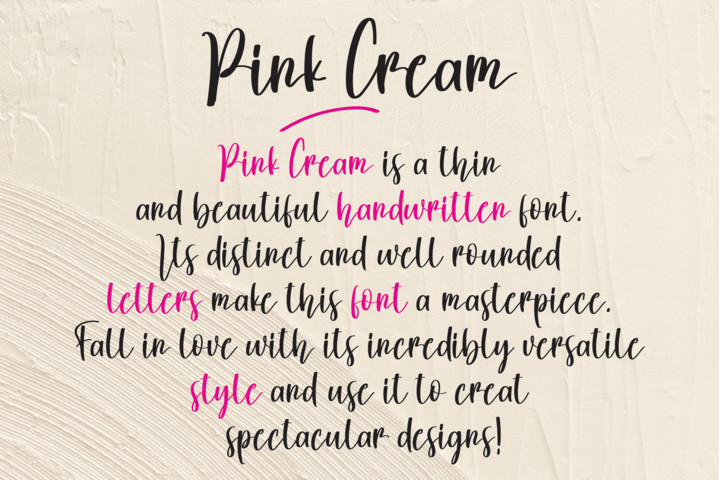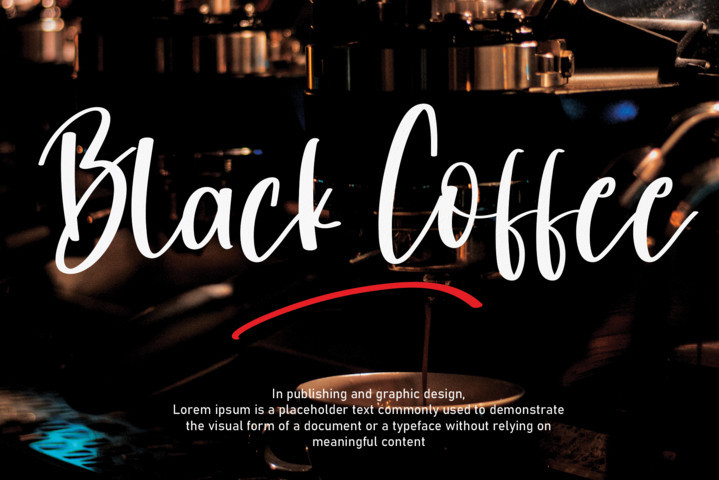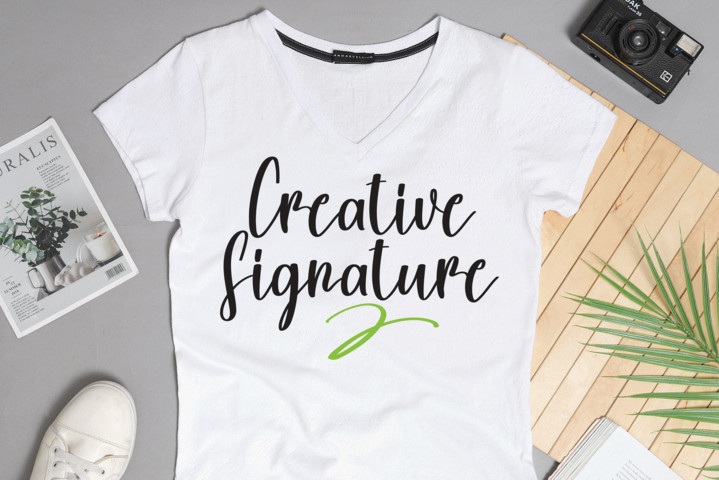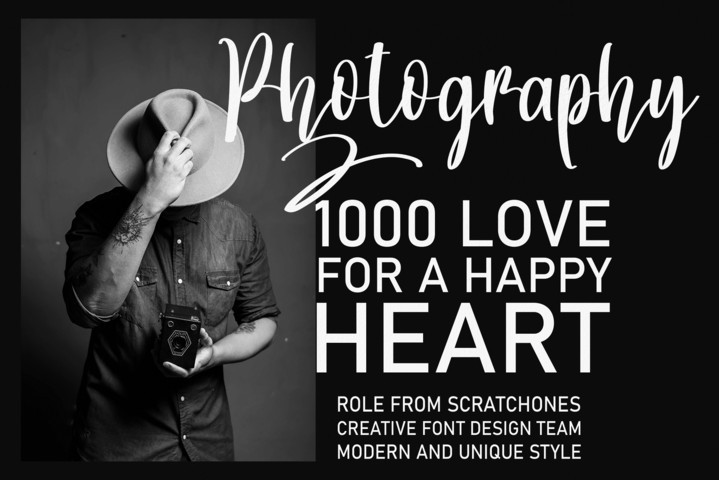
Pink Cream Script Font
It’s a chic, stylish script font that emanates sophistication and versatility. Its luxurious alternates and ligatures make this font the perfect match for any project.